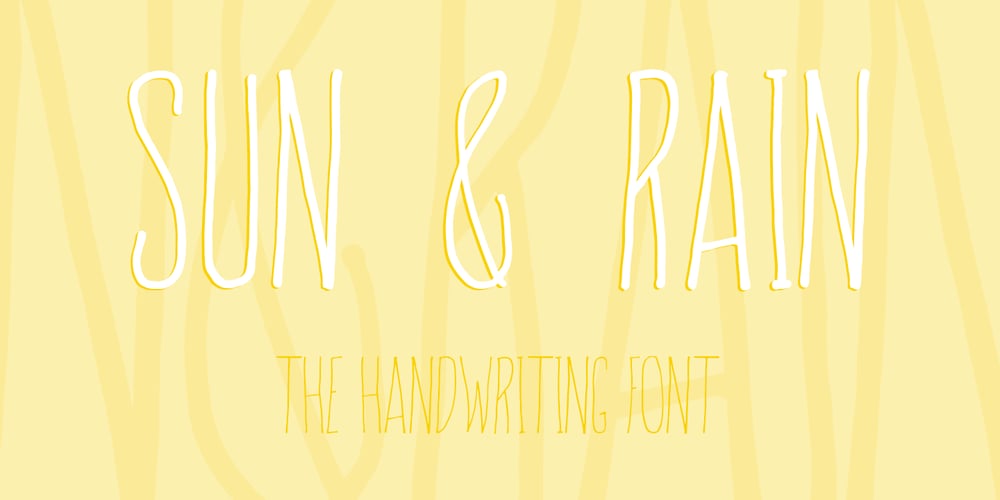
Sun & Rain Font Family was designed by Fiona Clarke and published by Bonez Designz. Sun & Rain contains 3 styles and family package options. A fun and fresh font that encapsulates both summer and winter with its tall, hand rendered style. A versatile style,the family works well for all kinds or projects from window displays to music albums The Sun and Rain family consists of three weights, light, regular and bold. The weights cover diacritic, Greek and Cyrillic.